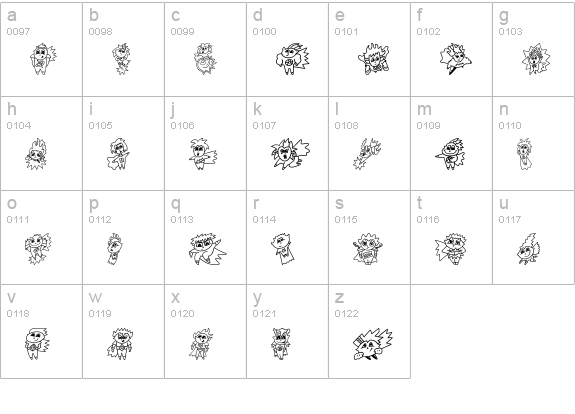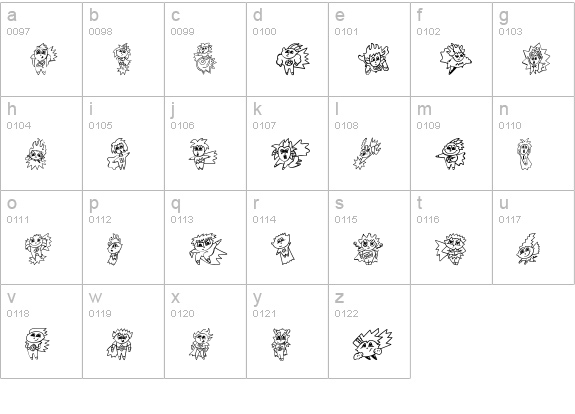
LittleHeroes Font Details
LittleHeroes font is a whimsical and playful typeface that exudes charm and character. Its rounded edges and friendly curves make it perfect for adding a touch of fun to any project. Whether you are designing a children's book, creating a logo for a kid-friendly brand, or crafting invitations for a birthday party, LittleHeroes font will bring a sense of joy and imagination to your work. The best part is, LittleHeroes font is completely free to download at FontsMarket.com. You can easily access this delightful font and start using it in your designs without any cost. Let your creativity shine with LittleHeroes font and bring a little bit of magic to your projects.